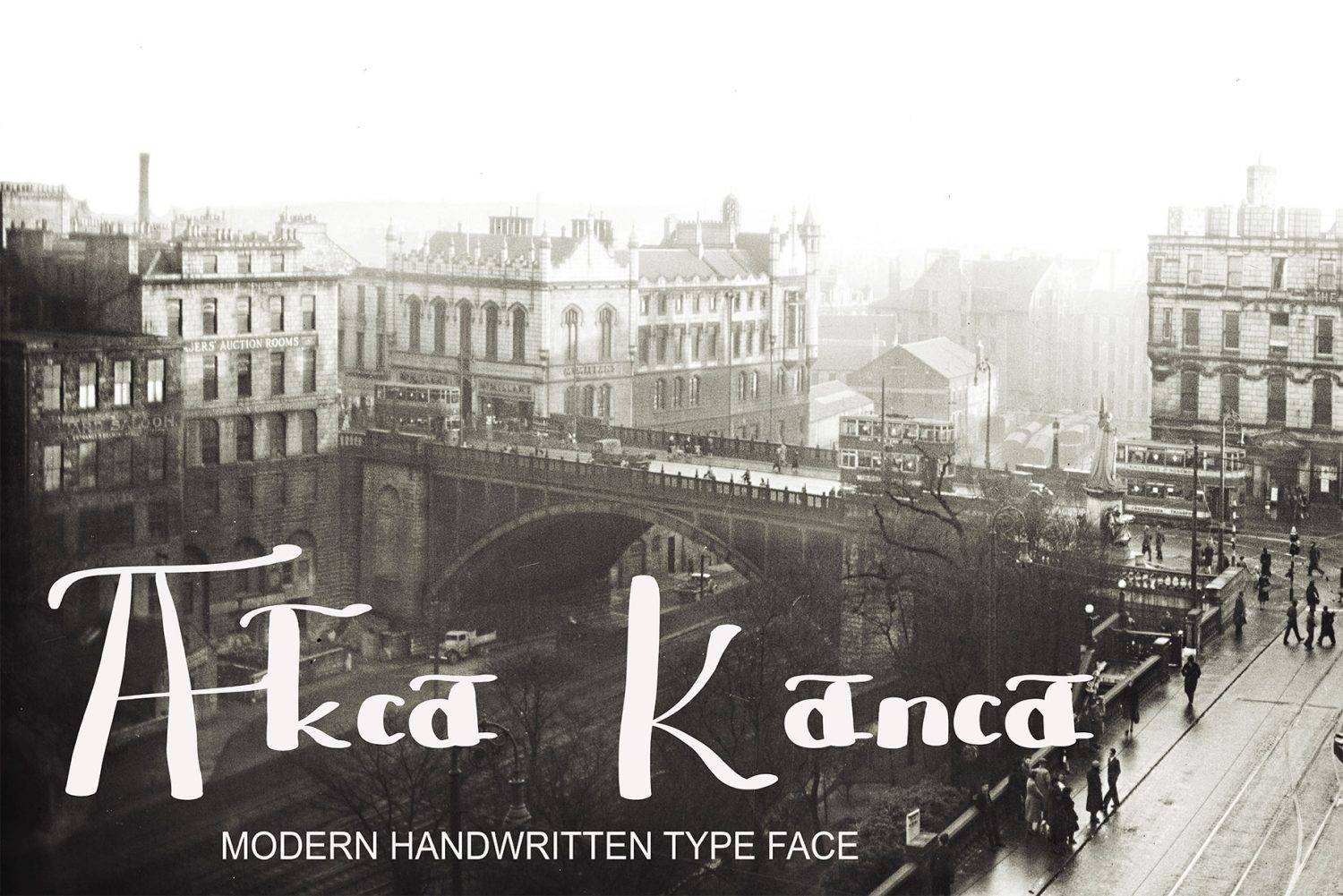
Akca Kanca is a unique, decorative script font with a playful and artistic flair, featuring tall, irregular letterforms and delicate, swirly strokes that give it a hand-drawn, whimsical feel. Its slender weight and lively character shapes make it ideal for creative branding, invitations, or expressive headlines where a distinctive and stylish impression is desired. This font works best when used sparingly to add personality and elegance to designs needing a touch of individuality and charm.
Akca Kanca Font
About Akca Kanca Font